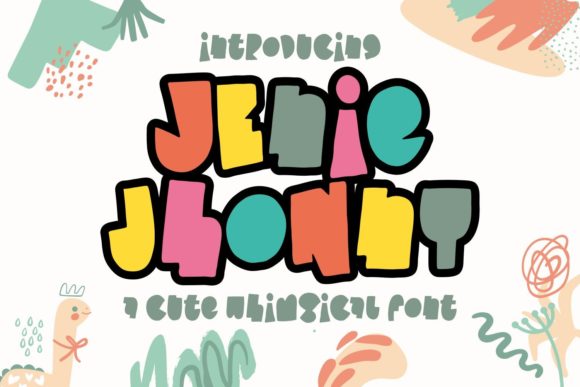
Introducing Jenie Jhonny, the font that will make your designs pop with playful charm! This adorable display font is bursting with personality, featuring chunky letters and a cheerful vibe that's sure to capture hearts.
Step into a world of whimsy and creativity with Jenie Jhonny. This enchanting font is a feast for the eyes, with its delightful curves and bubbly shapes. Each character dances across the page, as if caught in a playful dance. Whether you're designing invitations, posters, or social media posts, Jenie Jhonny will add a touch of magic to your creations.
Dive into the endless possibilities that Jenie Jhonny offers. This versatile font is perfect for a wide range of projects, from children's books and toys to greeting cards and party supplies. Its friendly and inviting style makes it an ideal choice for any design that aims to spread joy and happiness.
With Jenie Jhonny, you can unleash your creativity and craft designs that burst with personality. Let your imagination soar as you explore new and exciting ways to use this delightful font. Its charming appearance is sure to leave a lasting impression on your audience.